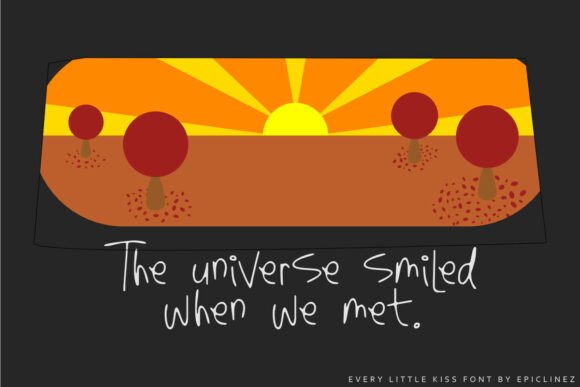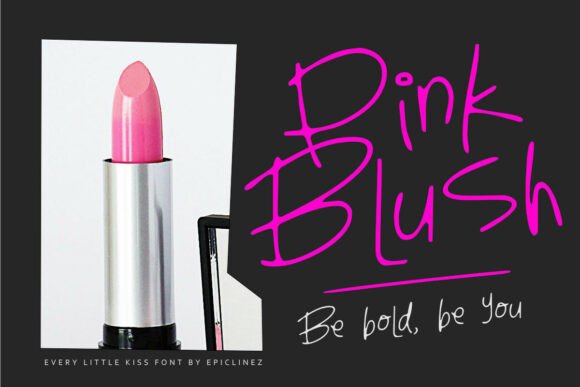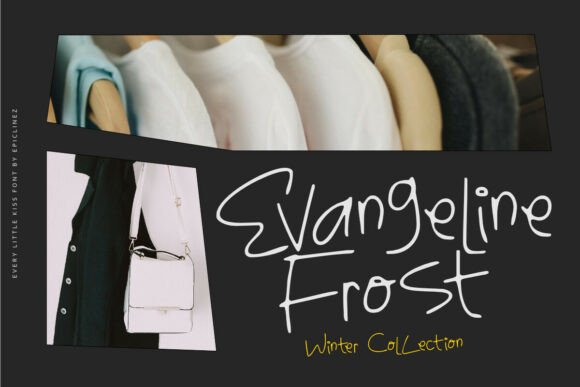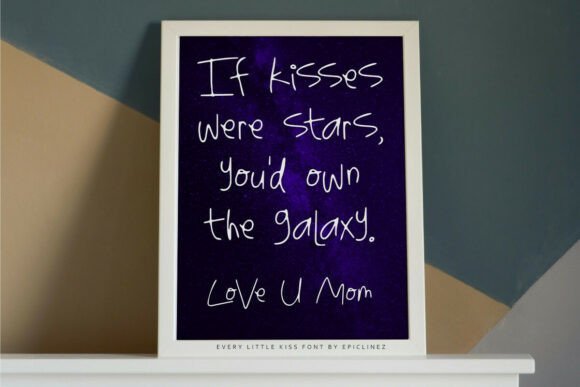
Introduction to Every Little Kiss Font
As a designer, have you ever found yourself searching for the perfect font to convey the essence of love and romance in your creative project? Perhaps you’re designing a wedding invitation, a greeting card, or a logo that embodies the warmth of a tender moment. Whatever your project may be, you’re in luck because we’re about to introduce you to a font that will make your words feel alive.
Every Little Kiss Font is a sweet, romantic handwritten typeface that captures the charm of love and the feeling of a handwritten love note. With its smooth curves, soft strokes, and natural pen flow, this font is a design resource that’s sure to add a touch of authenticity to your project. Whether you’re working on a free download, a high-quality design, or a project with a transparent background, Every Little Kiss Font is the perfect choice to whisper love, one kiss at a time.
Key Features of Every Little Kiss Font
- High-quality design: Every Little Kiss Font is a beautiful and elegant script font, perfect for creative projects that require a touch of sophistication.
- Unique characteristics: Every Little Kiss Font features a unique, hand-drawn design with subtle flourishes and imperfections, adding a touch of personality to any creative project.
- Design versatility: This font is ideal for a variety of design projects, including wedding invitations, greeting cards, and signage, due to its elegant and sophisticated design.
Honest Review: Every Little Kiss Font
As a designer, I’m always on the lookout for high-quality design resources to elevate my creative projects. I recently stumbled upon the Every Little Kiss Font, and I’m excited to share my thoughts on this beautiful font.
- ✨ High-quality design: The Every Little Kiss Font is a stunning addition to any design project, with a beautiful, elegant style that’s perfect for romantic or whimsical themes.
- ⚠️ Limited character set: The Every Little Kiss Font is primarily designed for display purposes, which means it may not be suitable for large blocks of text or extensive writing projects.
Overall, I’m impressed with the Every Little Kiss Font. It’s a lovely addition to any designer’s toolkit, and its free download makes it a valuable resource for creative projects. While it may have some limitations, I believe the benefits far outweigh the drawbacks.
Transparent Background and High-Quality Design
The Every Little Kiss Font features a transparent background, making it ideal for use in high-quality design projects. When used in conjunction with a high-quality design resource, such as a beautiful background image, the font can add a touch of elegance and sophistication to your creative project.
The Every Little Kiss Font is ideal for use in a variety of creative projects, including wedding invitations, birthday cards, and other special occasion designs. It’s also a great choice for use in branding and marketing materials, such as logos and business cards.